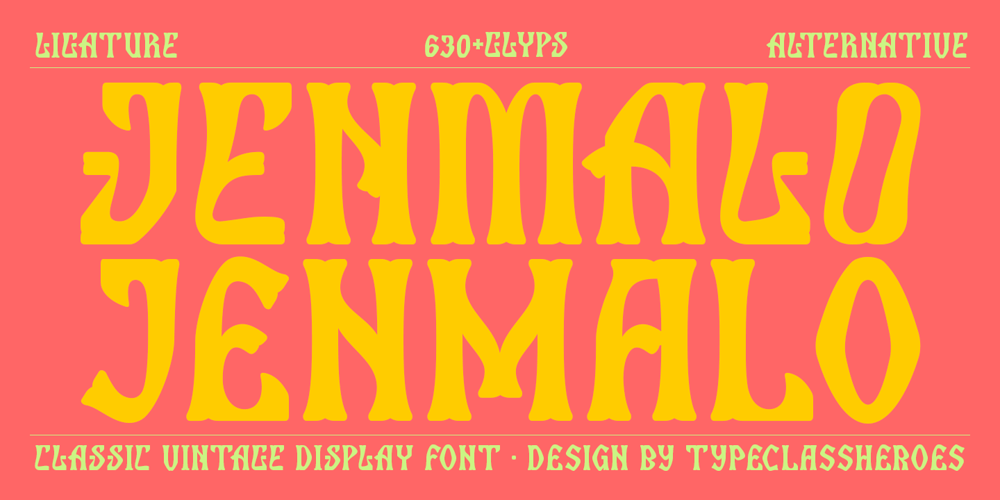
Jenmalo Font Family was designed by Suandana ipandemade and published by TypeClassHeroes. Jenmalo contains 1 styles and family package options. Jenmalo is a vintage display font comes with proud all caps inspired by the cowboy era which will bring your project a classic strong and powerful touch. Browse through all the previews and get as inspired as I was when creating this font.